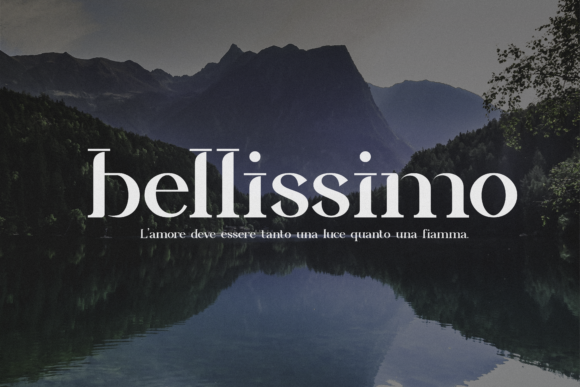
Relishia Font
Relishia is a simple but also the attractive font. You can successfully use this beautiful typeface for posters, wedding invitations, quotes, and websites.